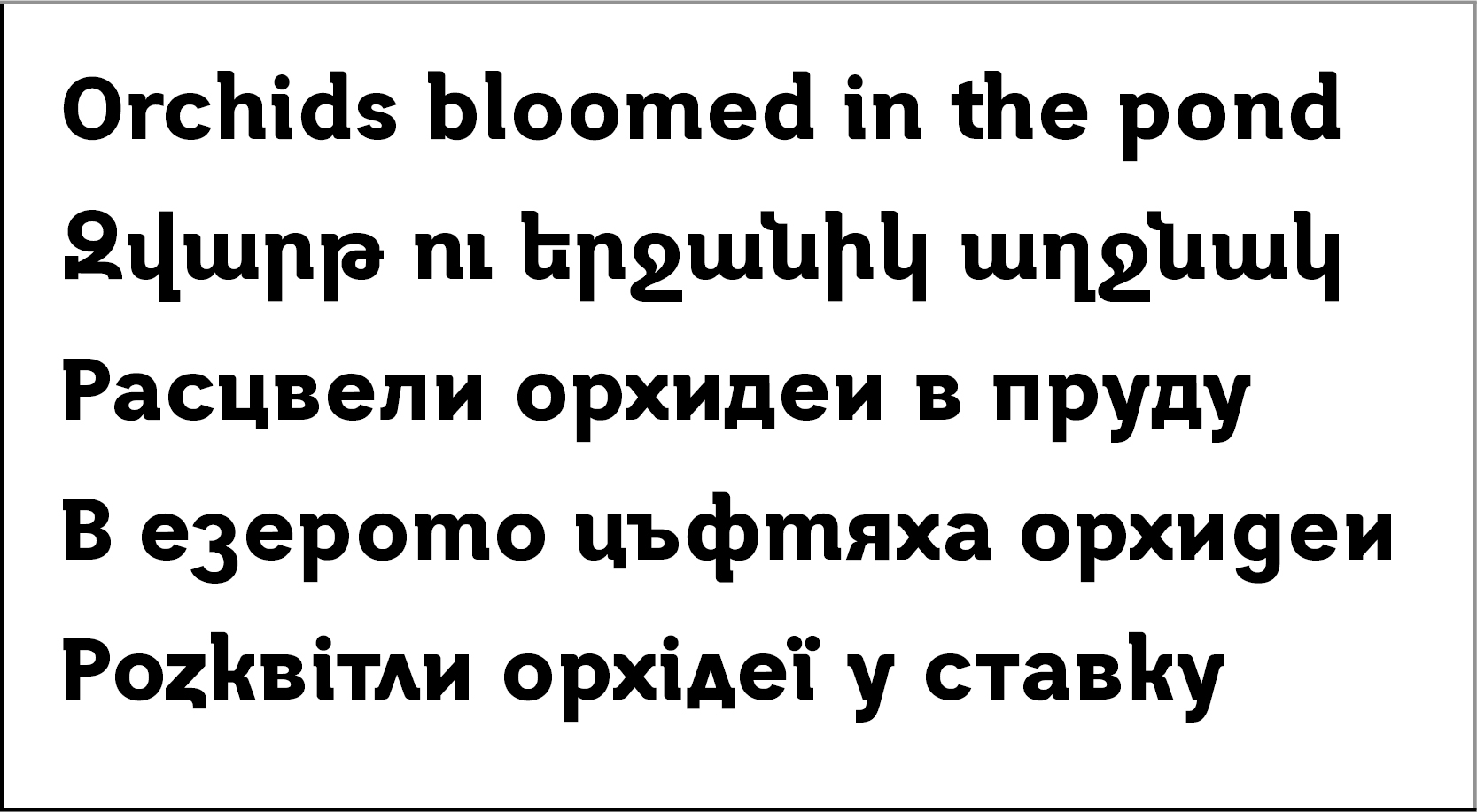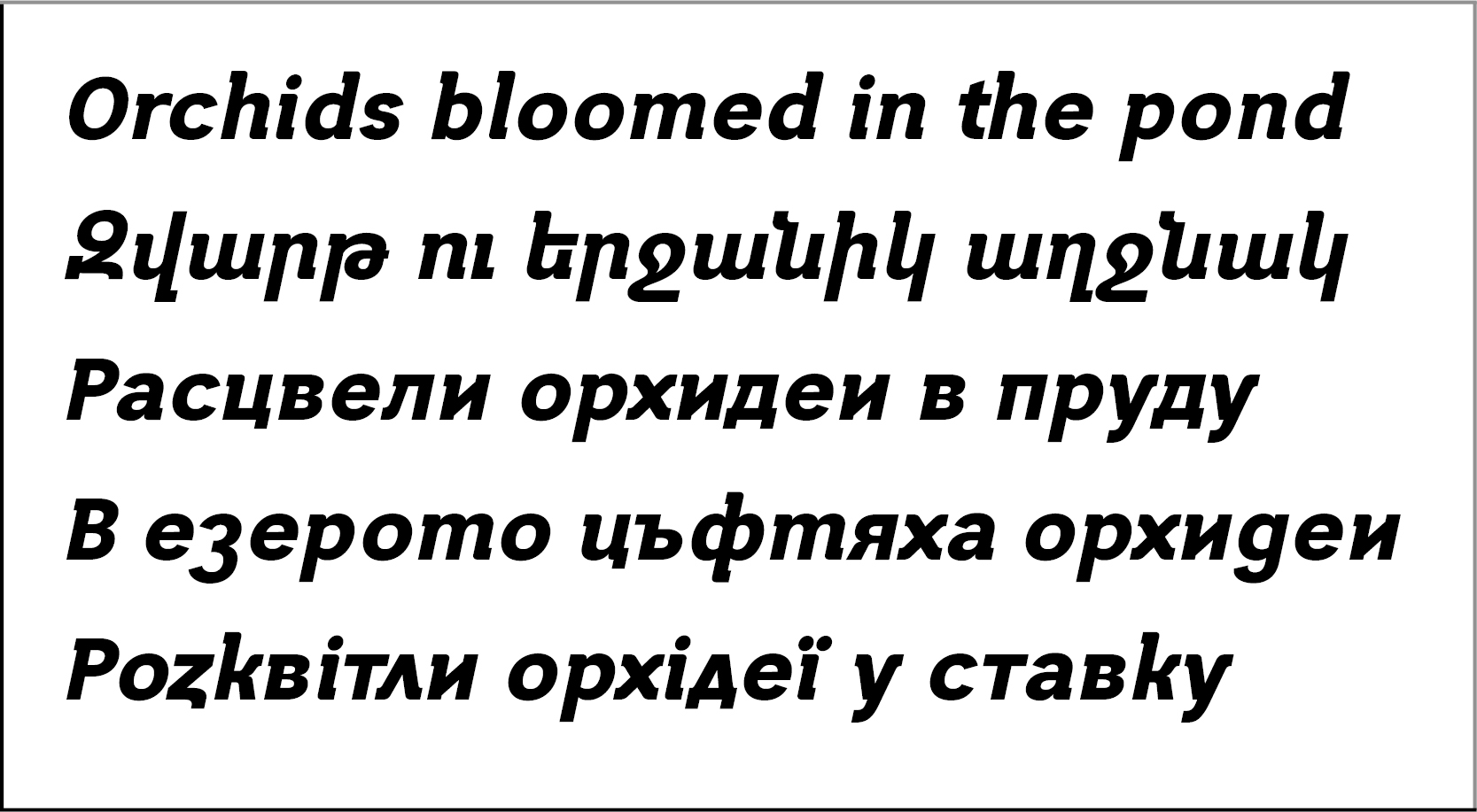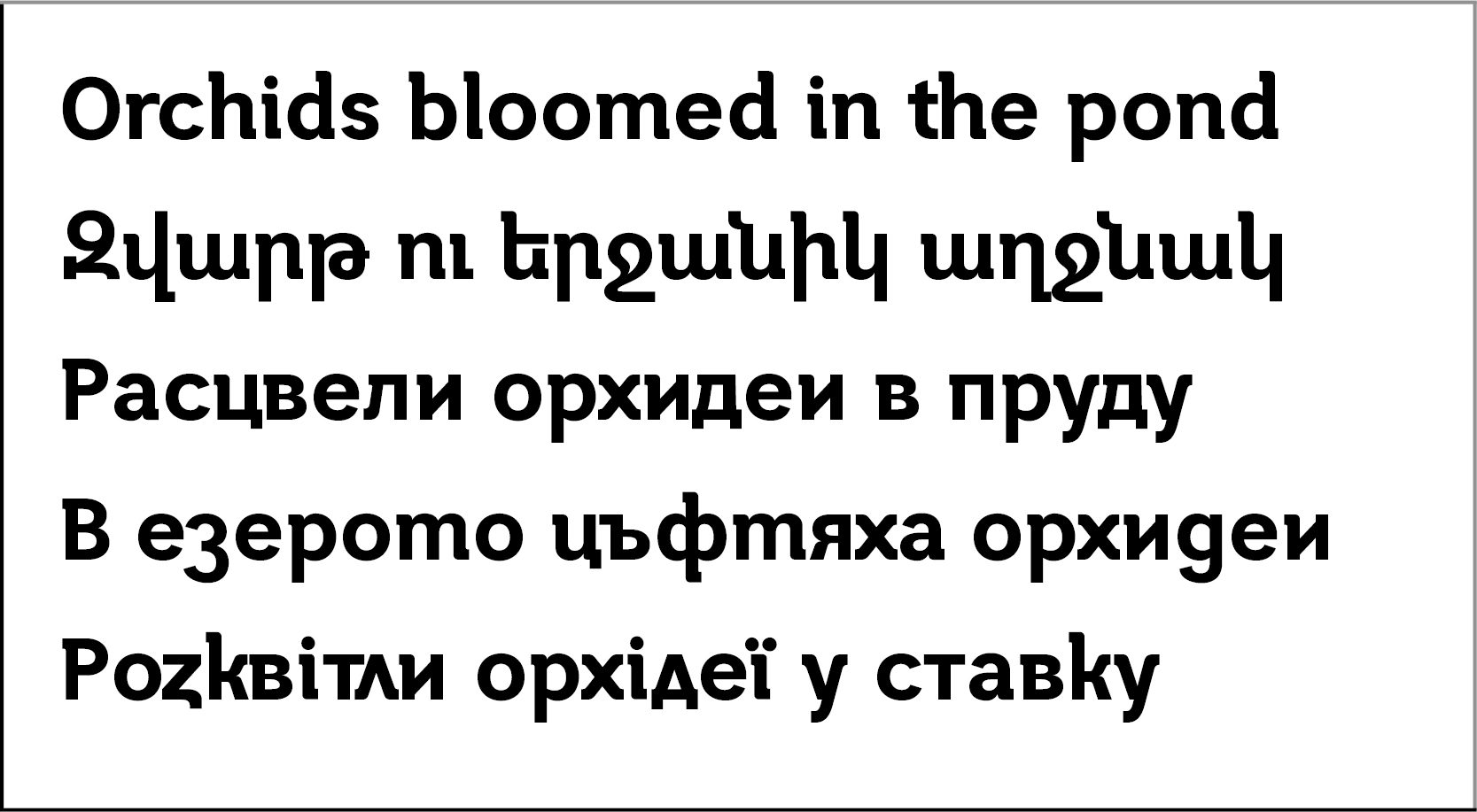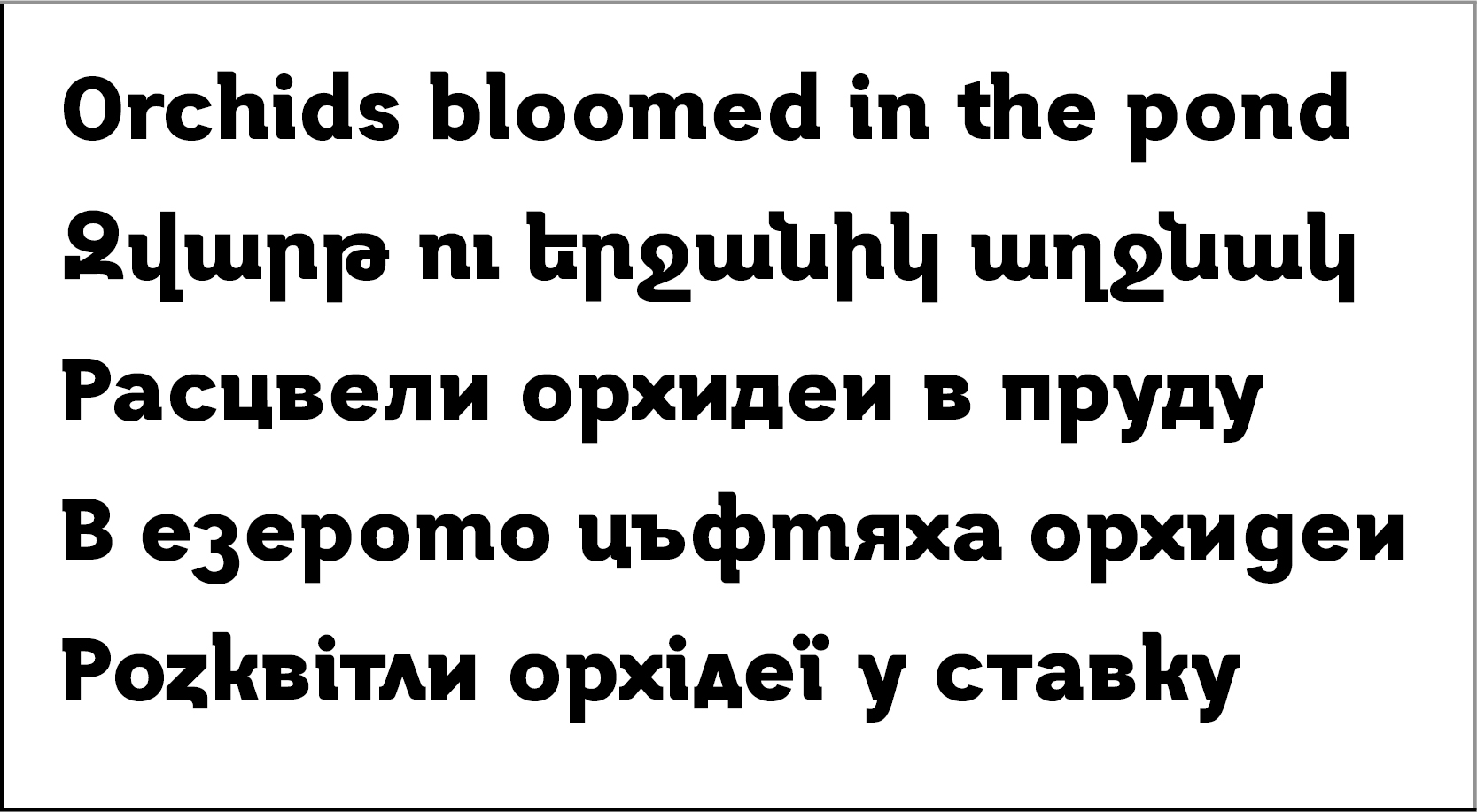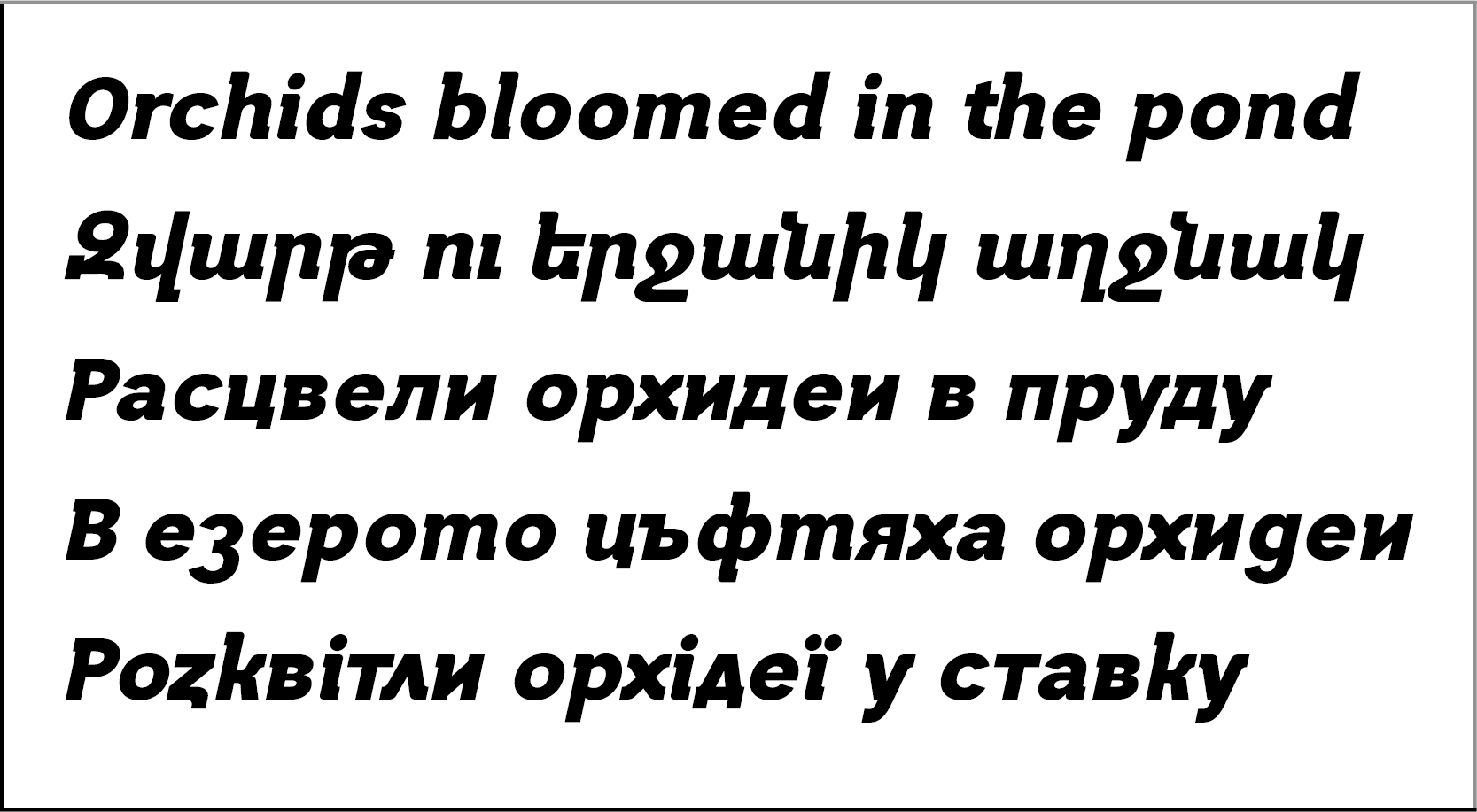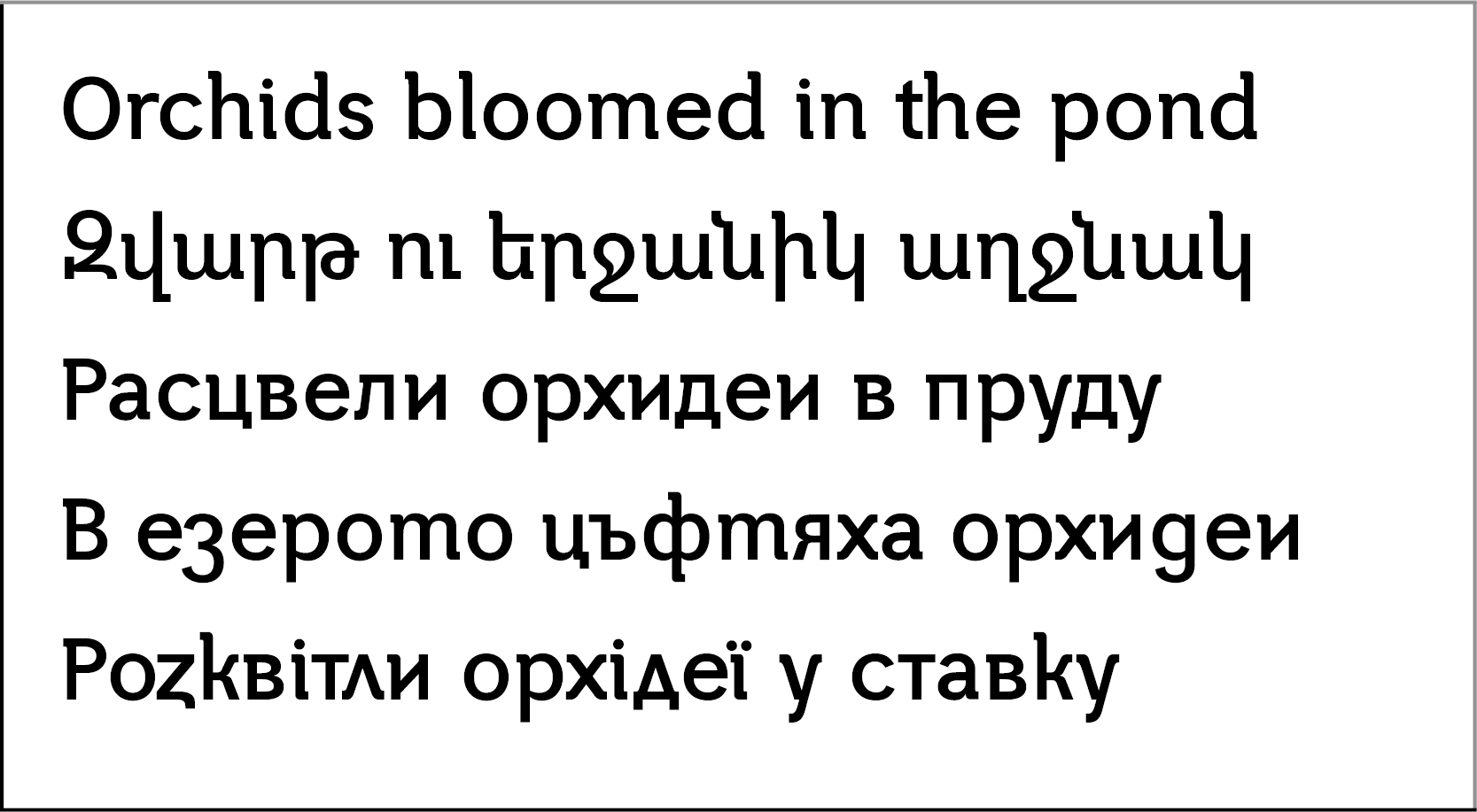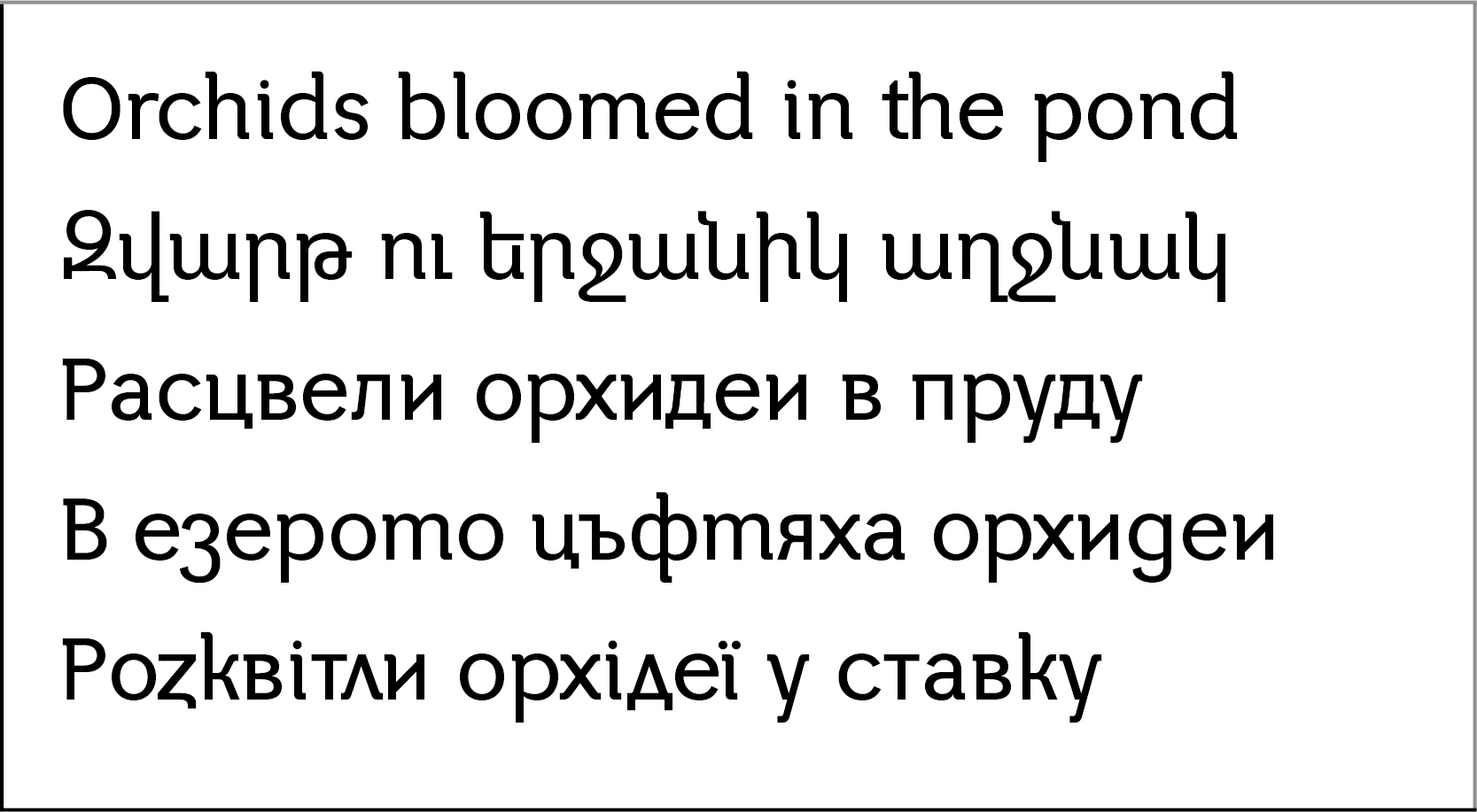
GHEA Gata
Design date: 2024
Styles: 12 (Regular, Regular Italic, Medium, Medium Italic, SemiBold, SemiBold Italic, DemiBold, DemiBold Italic, Bold, Bold Italic, ExtraBold, ExtraBold Italic).
The font GHEA Hayq has one side serif font and includes Armenian, Latin, Cyrillic alphabetic systems, also Bulgarian and Ukrainian Alternatives.